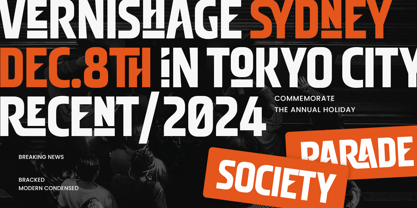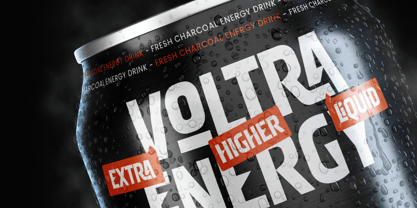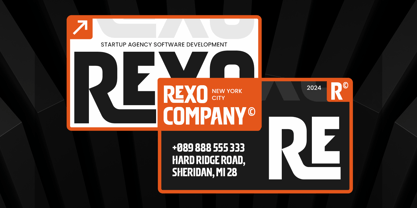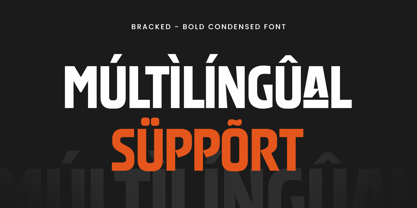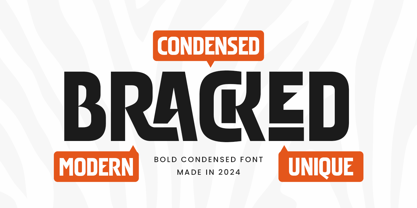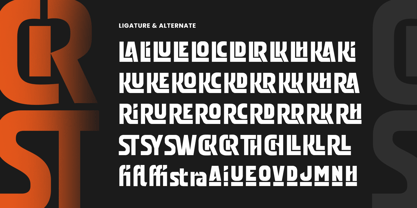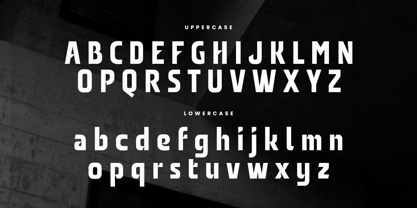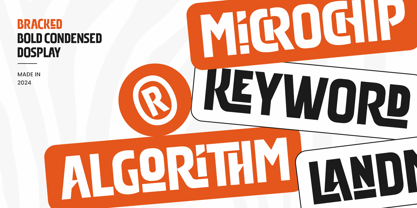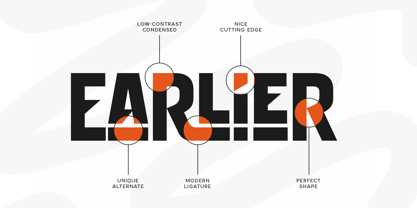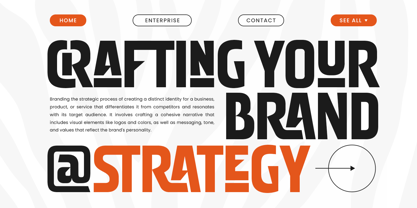
Bracked
Bracked - Bold Condensed Font
Bracked is a bold condensed font tailored for modern and impactful display use. With its strong and commanding presence, Bracked excels in delivering attention-grabbing headlines, branding projects, and posters that need to stand out. Its well-defined, compact letterforms make it perfect for designs that need to communicate power and clarity without taking up excessive space.
Inspired by contemporary typographic trends, Bracked merges bold aesthetics with legibility, making it versatile for both print and digital media. Whether used for magazine titles, website headers, or promotional materials, Bracked ensures your message resonates with precision and strength.
Bracked's unique condensed style brings a professional and sleek edge to any project. It's an ideal choice for creatives looking for a modern typeface that leaves a lasting impression and pairs seamlessly with other design elements.
Bracked Bold Condensed Font Features:
• Distinctive Bold Condensed Characters
• Punctuation, Number, and Symbol
• Uppercase and Lowercase
• Opentype Features
Multilingual Characters available for:
Afrikaans, Albanian, Asu, Basque, Bemba, Bena, Breton, Chiga, Cornish, Dutch, English, Estonian, Filipino, Finnish, Friulian, Galician, German, Gusii, Indonesian, Irish, Italian, Kabuverdianu, Kalenjin, Kinyarwanda, Luo, Luxembourgish, Luyia, Machame, Makhuwa-Meetto, Makonde, Malagasy, Manx, Morisyen, North Ndebele, Nyankole, Oromo, Portuguese, Quechua, Romansh, Rombo, Rundi, Rwa, Samburu, Sango, Sangu, Scottish Gaelic, Sena, Shambala, Shona, Soga, Somali, Spanish, Swahili, Swedish, Swiss.